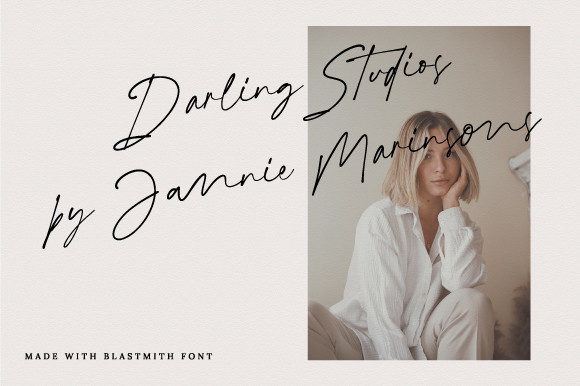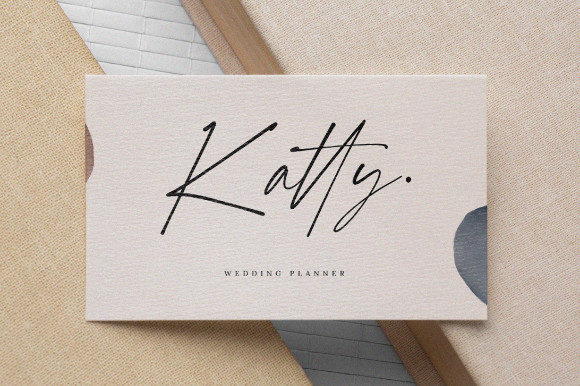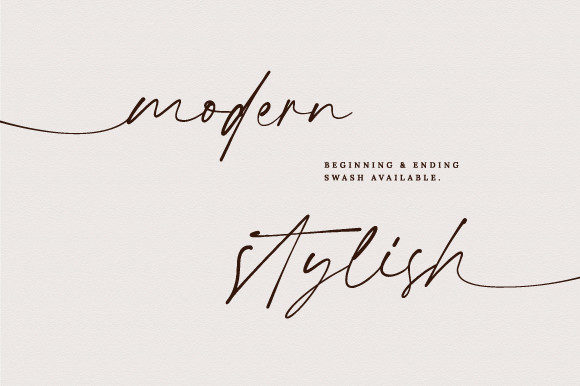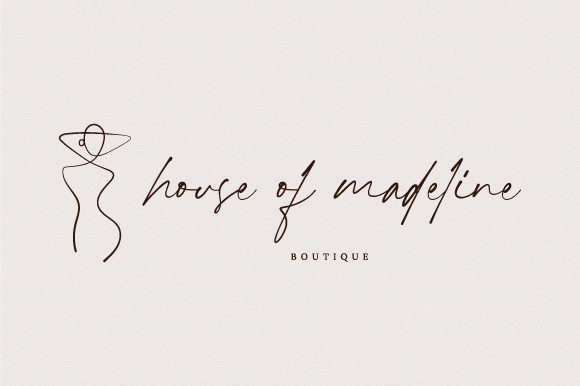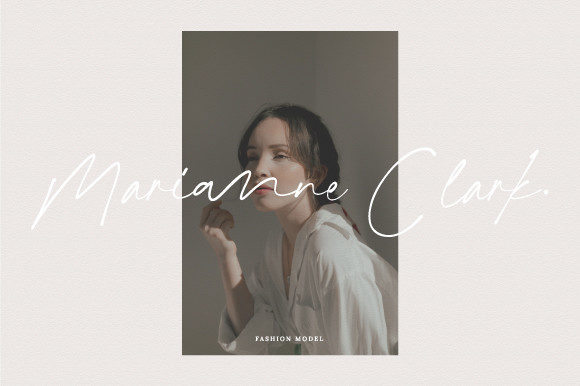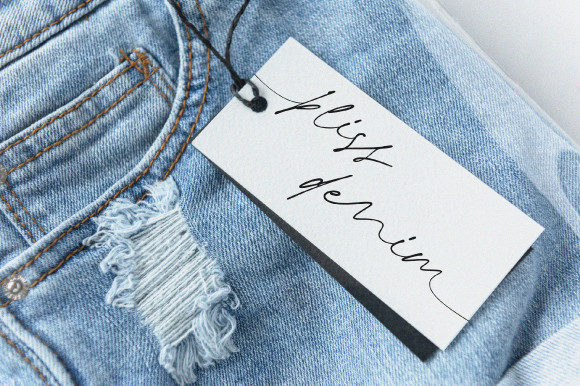
Introducing Blastmith Font: Elevate Your Designs with Modern Elegance
In the realm of typography, fonts play a pivotal role in conveying messages, evoking emotions, and creating lasting impressions. For designers and crafters seeking a modern and stylish script font that exudes signature-like characteristics, Blastmith Font is an exceptional choice. This comprehensive guide delves into the features, applications, and benefits of Blastmith Font, highlighting its potential to elevate your designs.
What is Blastmith Font?
Blastmith is a contemporary script font that embodies elegance and sophistication. Its design is inspired by the fluidity and expressiveness of handwritten scripts, making it perfect for projects that require a personal touch. The font’s modern aesthetic is balanced with classic elements, ensuring versatility across various design applications.
Key Features of Blastmith Font
- Signature-like Characteristics: Blastmith Font boasts a unique, signature-like quality that sets it apart from other script fonts. Its characters are designed to mimic the fluidity and expressiveness of handwriting, adding a personal and sophisticated touch to any design.
- Ligatures and Swash Characters: One of the standout features of Blastmith Font is its inclusion of several ligatures and swash characters. These typographic elements enhance the natural flow and elegance of the text, making it ideal for designs that require a high level of sophistication.
- PUA Encoding: Blastsmith Font is PUA (Private Use Area) encoded, which means that accessing the additional glyphs and swashes is straightforward. This feature allows designers to explore a wide range of typographic variations, ensuring their designs stand out.
Applications of Blastmith Font
Blastmith Font’s versatility makes it suitable for a variety of design projects. Here are some of the key applications:
- Invitation Design: Whether it’s a wedding invitation, birthday party invite, or corporate event, Blastmith Font adds a touch of elegance and sophistication, setting the tone for a memorable occasion.
- Branding: For businesses looking to establish a strong brand identity, Blastmith Font offers a modern and stylish solution. Its unique characteristics can help brands differentiate themselves and convey their message effectively.
- Quotes and Typography: The font’s expressive nature makes it perfect for showcasing quotes, sayings, and phrases. Designers can create visually appealing typographic posters, social media graphics, and blog posts that capture the reader’s attention.
- Business Cards: A well-designed business card is essential for professionals. Blastmith Font can help create memorable and stylish business cards that reflect the owner’s personality and brand.
- Social Media Posts: In the digital age, social media presence is crucial. Blastmith Font can elevate social media posts, making them more engaging and visually appealing to the audience.
Benefits of Using Blastmith Font
Choosing Blastmith Font for your design projects comes with several benefits:
- Ease of Use: Thanks to its PUA encoding, designers can easily access and use the font’s extensive range of glyphs and swashes, making the design process more efficient.
- High Versatility: Blastmith Font’s modern and stylish design makes it suitable for a wide range of projects, from formal invitations to creative social media graphics.
- Unique Aesthetic: The font’s signature-like characteristics and the inclusion of ligatures and swashes provide a unique aesthetic that can help designs stand out in a crowded digital landscape.
| Font Name | Blastmith Font |
| Author | Prioritype |
Blastmith Font is a powerful tool for designers and crafters looking to infuse their projects with modern elegance and sophistication. Its unique features, versatility, and ease of use make it an excellent choice for a variety of design applications. Whether you’re working on invitation designs, branding, quotes, business cards, or social media posts, Blastmith Font has the potential to elevate your designs and leave a lasting impression on your audience.